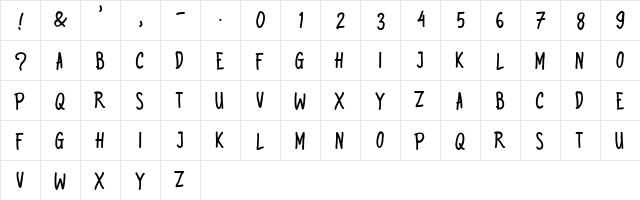
Black Cleng Regular Font Preview
Black Cleng Regular
Black Cleng Regular Font Details
Design Context for Black Cleng Typeface
Black Cleng is a composed and adaptable typeface that performs quietly and consistently across a wide range of design contexts.